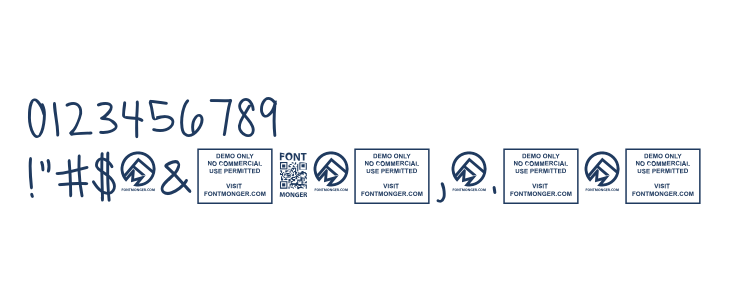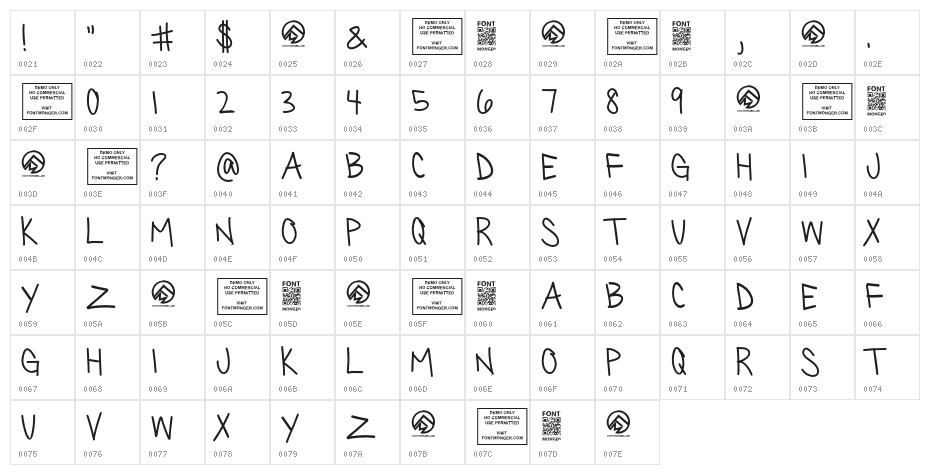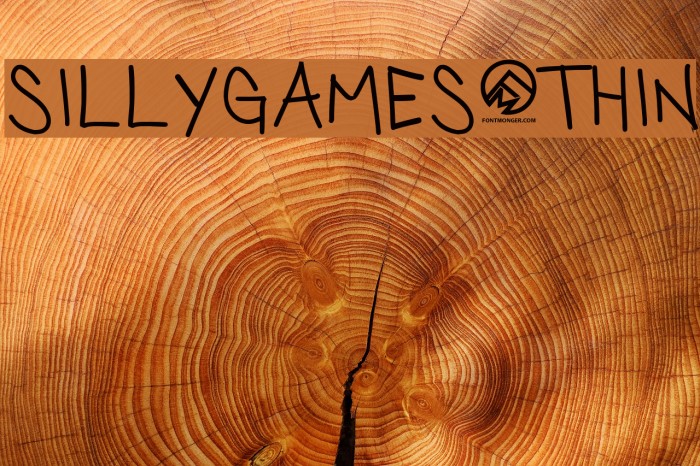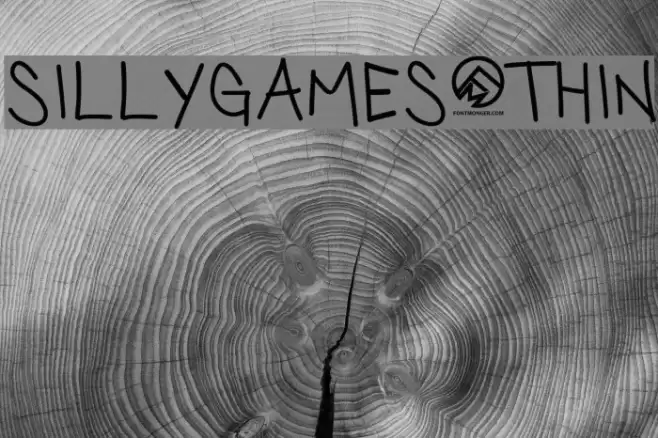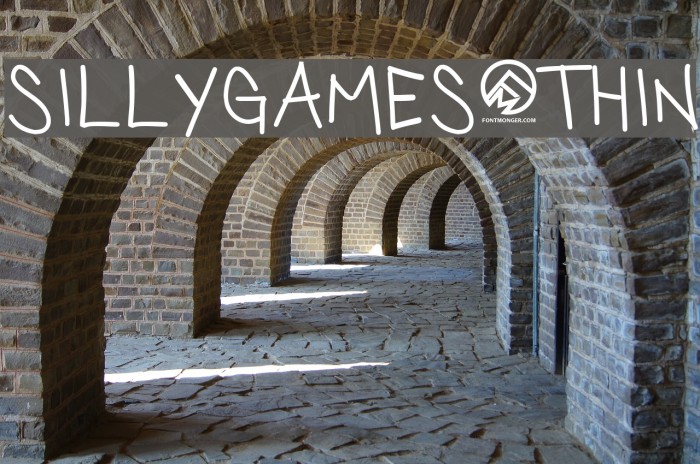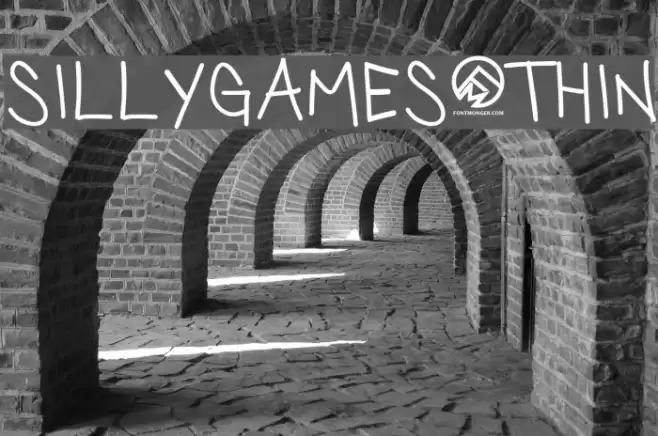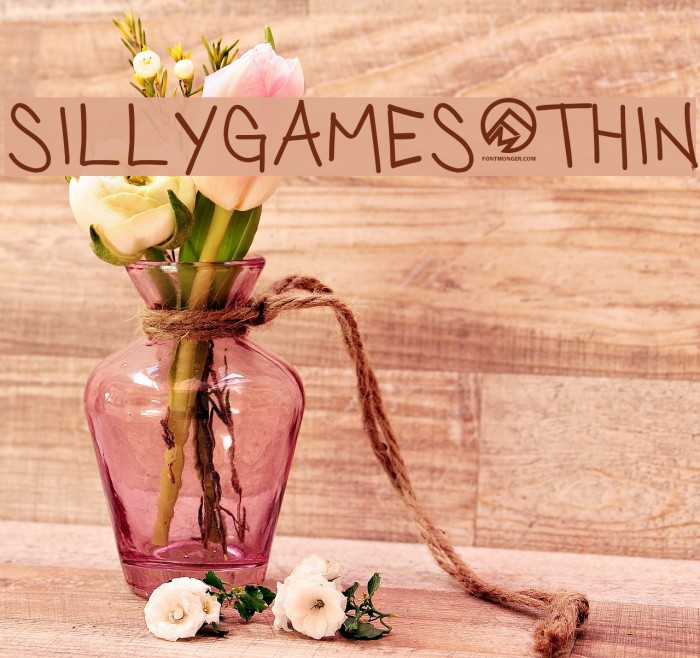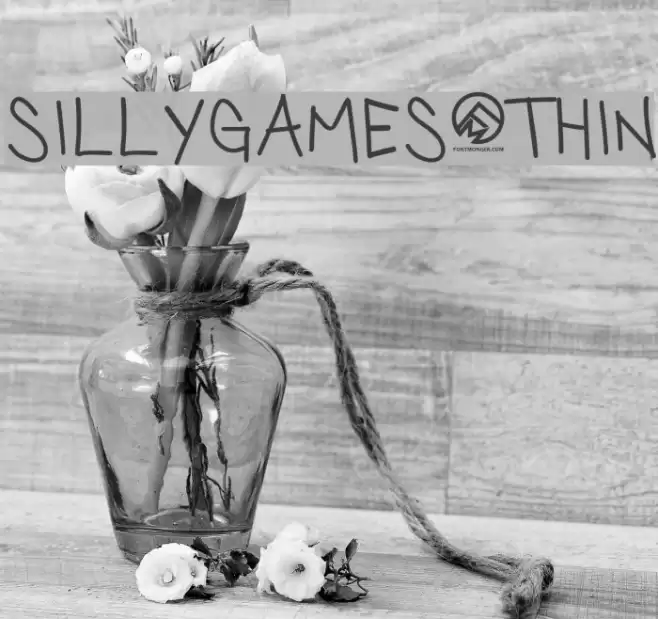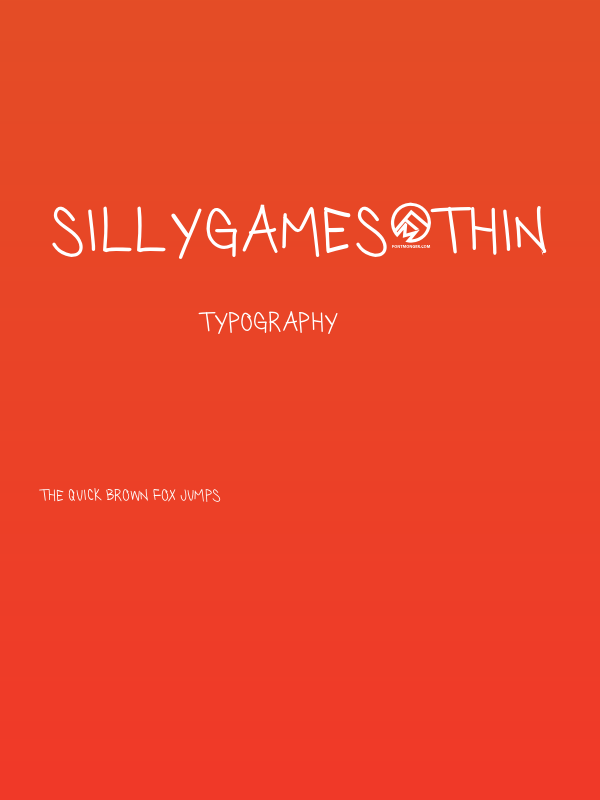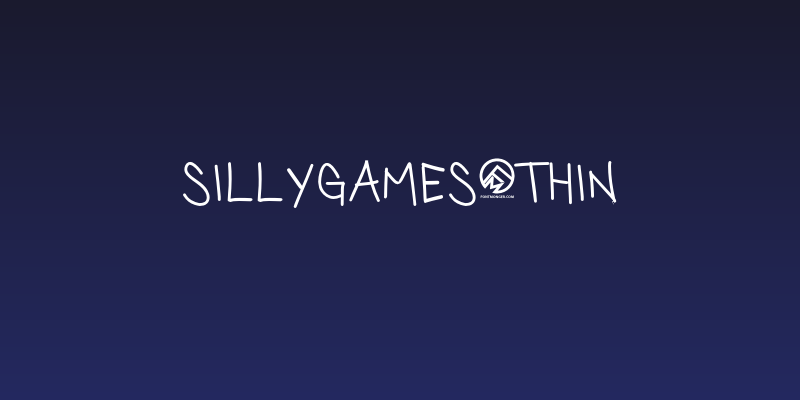
SillyGames-Thin Font
SillyGames-Thin Description
This font features a playful and casual handwritten style, characterized by its thin strokes and slightly irregular letterforms. The uppercase and lowercase letters maintain a consistent flow, giving it a relaxed and approachable appearance. The numerals and special characters are crafted with the same informal touch, making them blend seamlessly with the alphabet. The overall design is simple yet expressive, ideal for projects that require a personal and friendly tone. Its thin weight and loose spacing contribute to its airy and light-hearted feel, making it suitable for creative and informal applications.
| Proposed Projects | Ideal for greeting cards, children's books, casual invitations, and playful branding. |